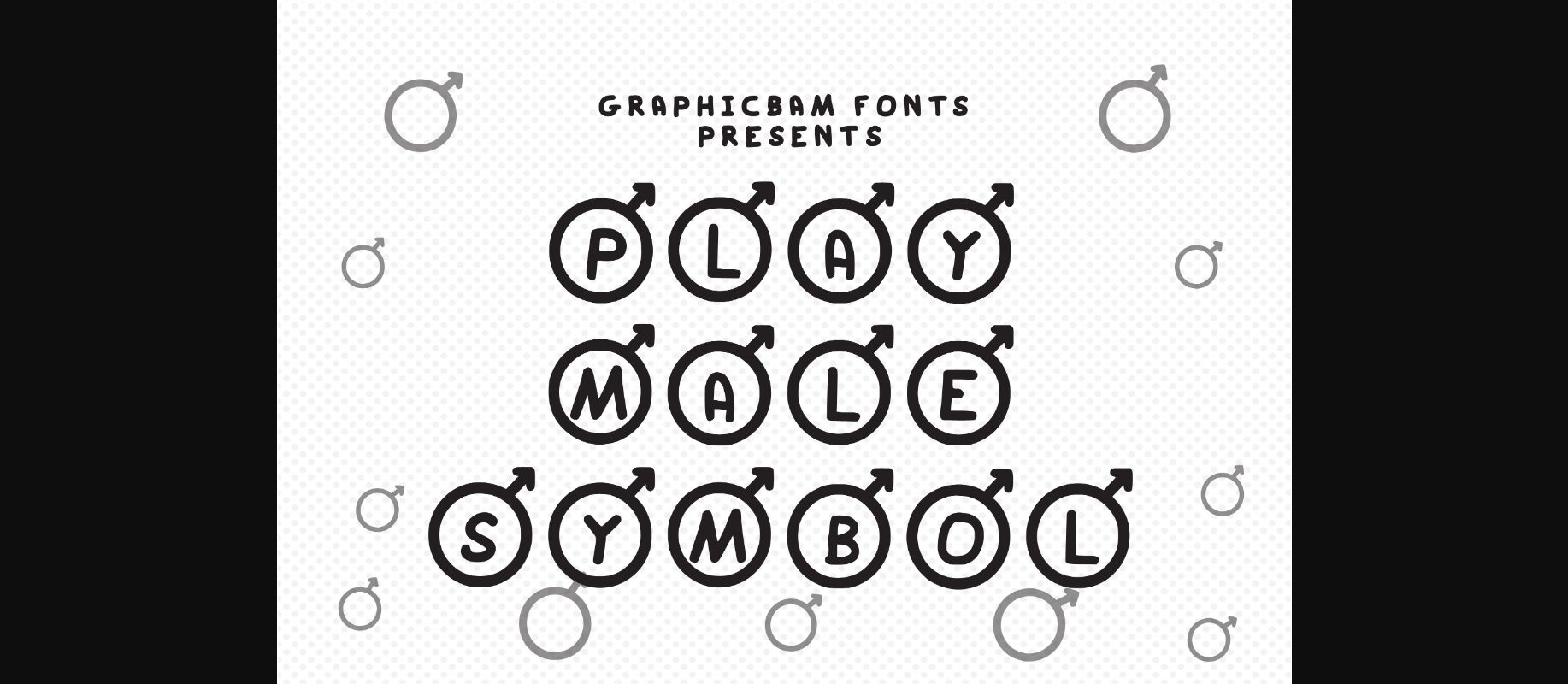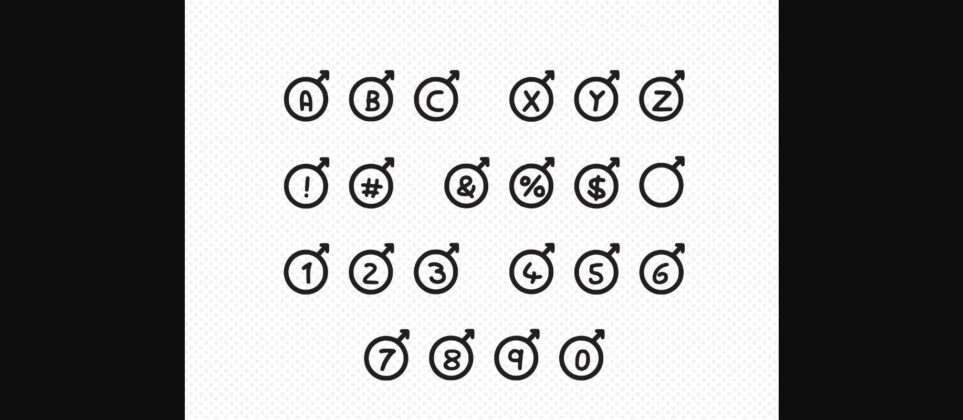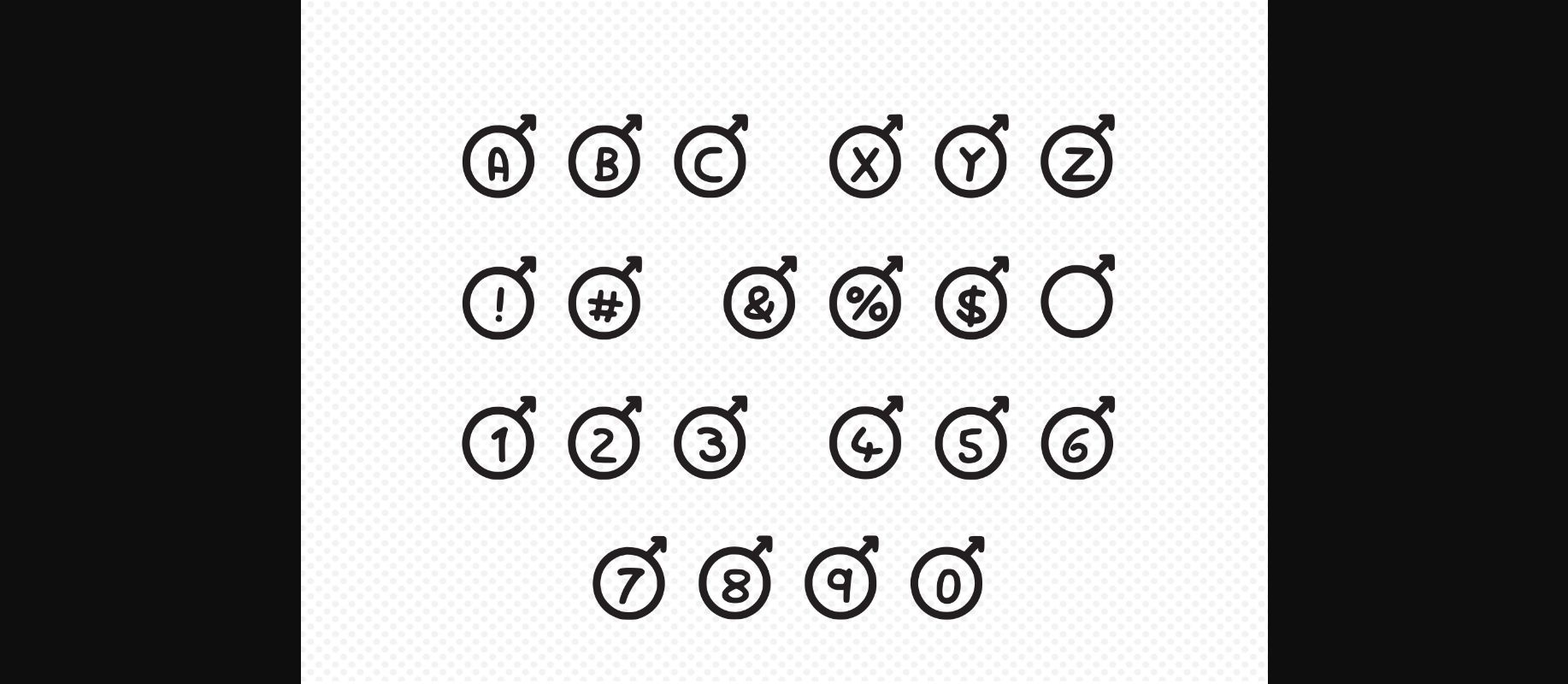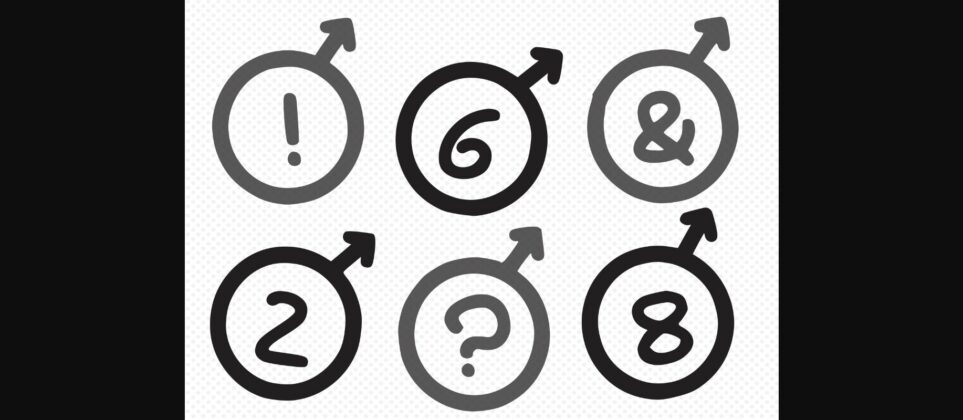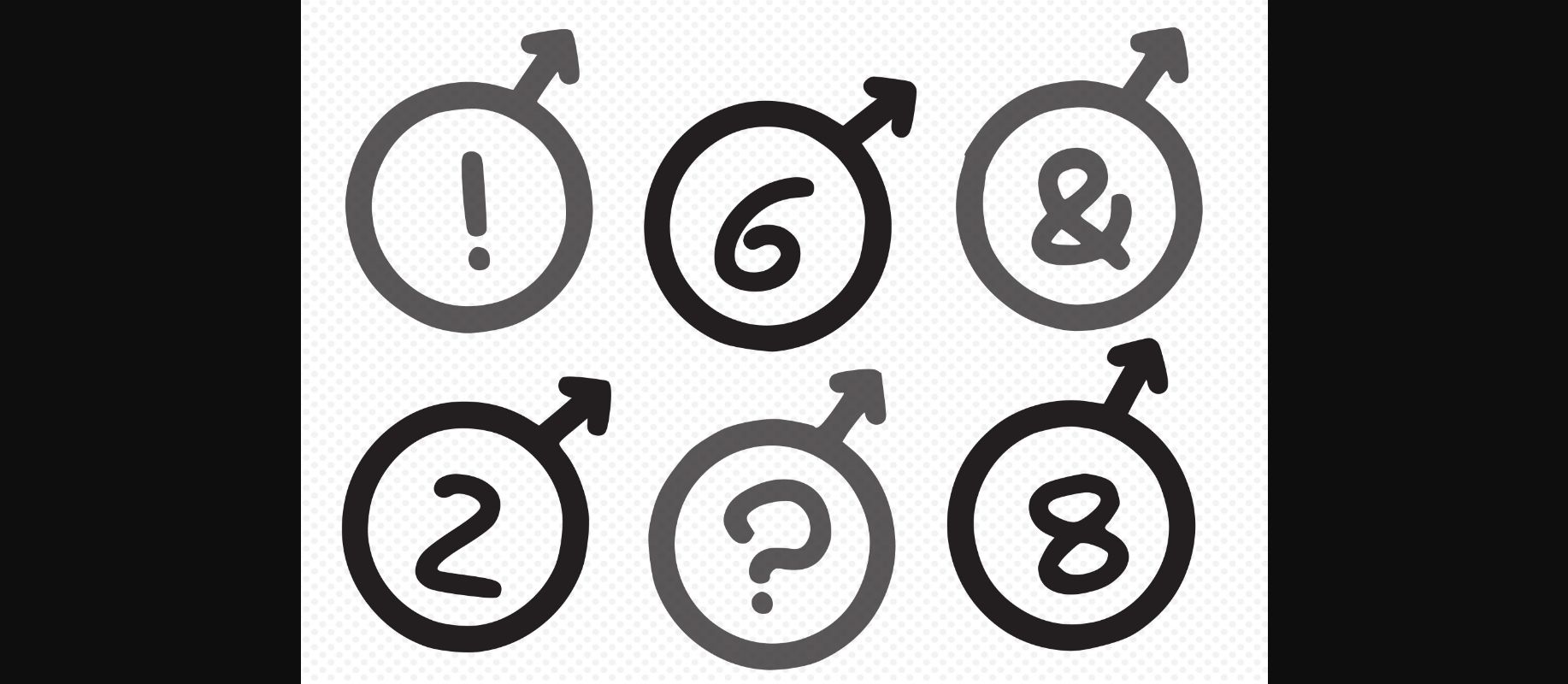
Play Male Symbol Font
About Play Male Symbol Font
Play Male symbol is the right decorative font for masculine projects or anything related. Use it for projects that need unique and creative typography!